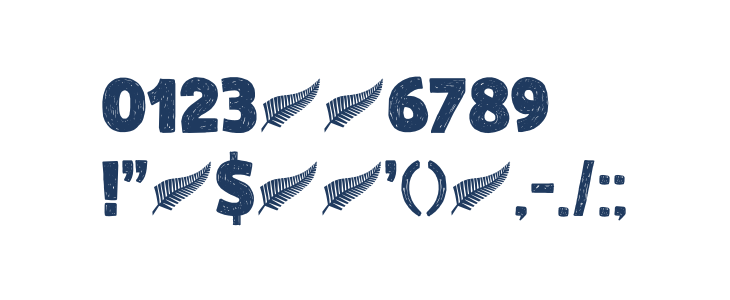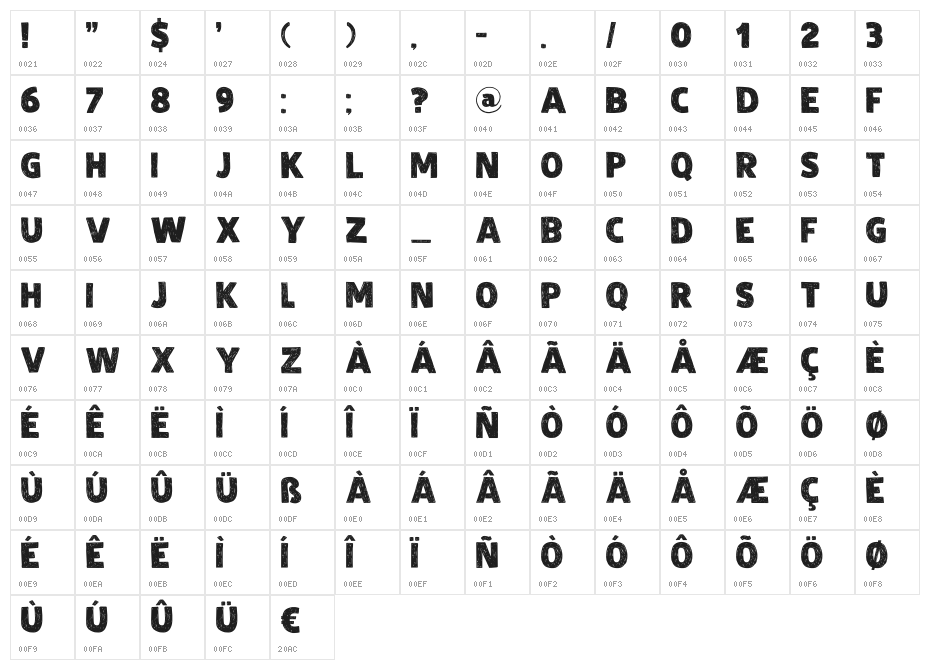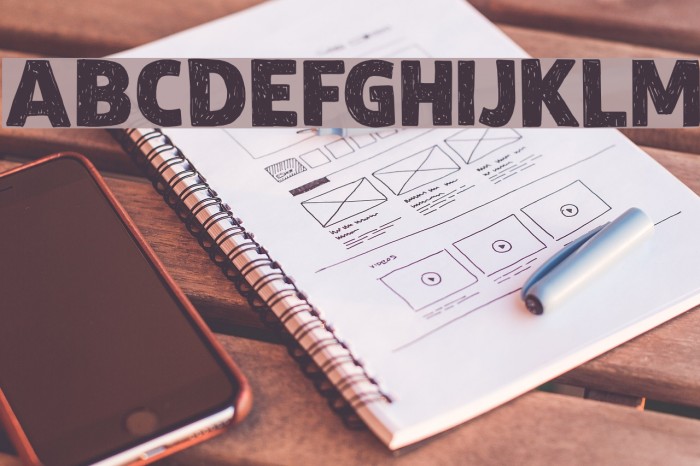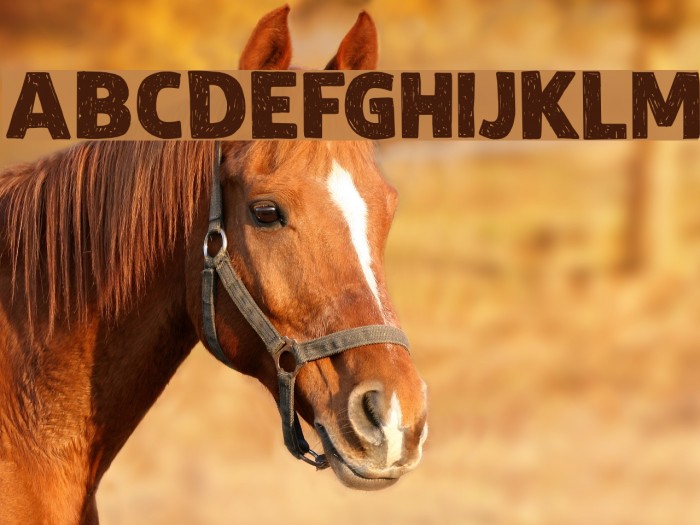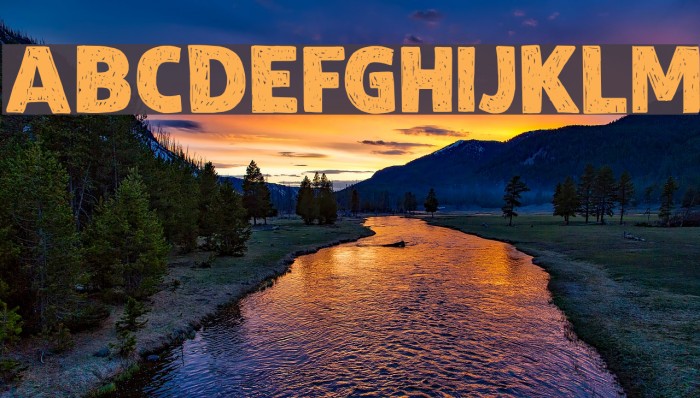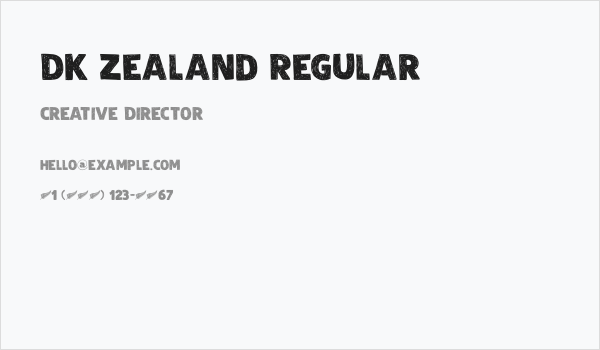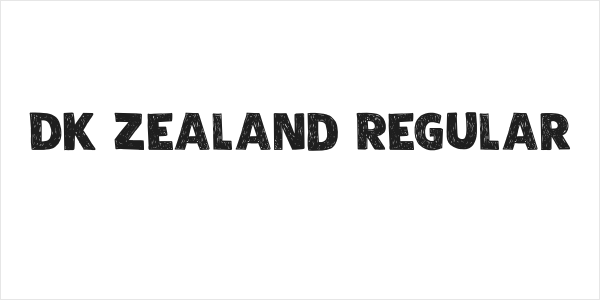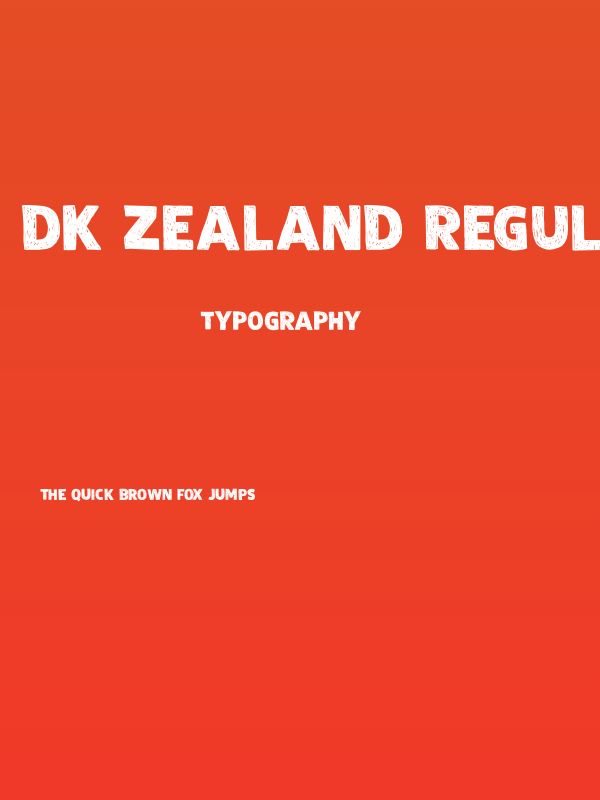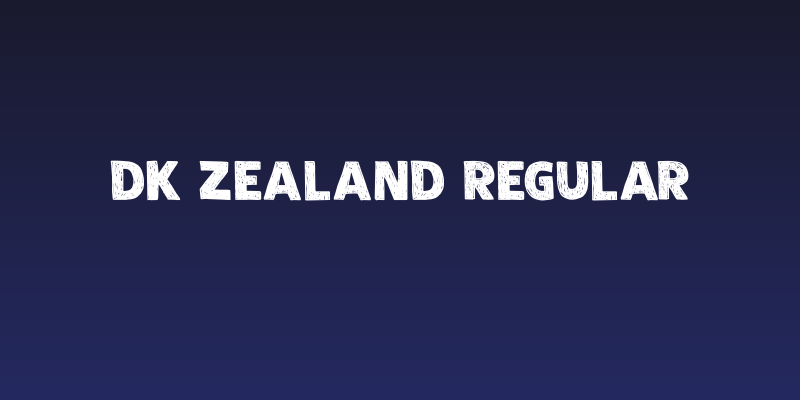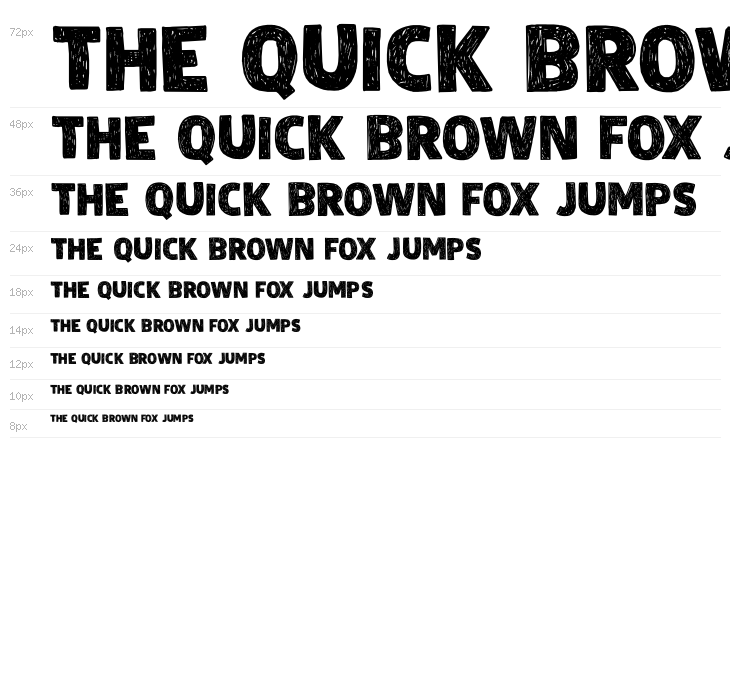
DK Zealand Regular Font
DK Zealand Regular Description
This font features a bold and textured style, characterized by its rough, hand-drawn appearance. The uppercase letters are prominent and sturdy, with a slightly uneven texture that gives a rustic and organic feel. The numbers and special characters maintain this rugged aesthetic, making them stand out with a unique flair. The font's design is reminiscent of vintage or handcrafted signage, offering a distinctive and eye-catching look. Its boldness and texture make it suitable for projects that require a strong visual impact.
| Proposed Projects | Ideal for posters, logos, branding, and any design requiring a bold, vintage feel. |